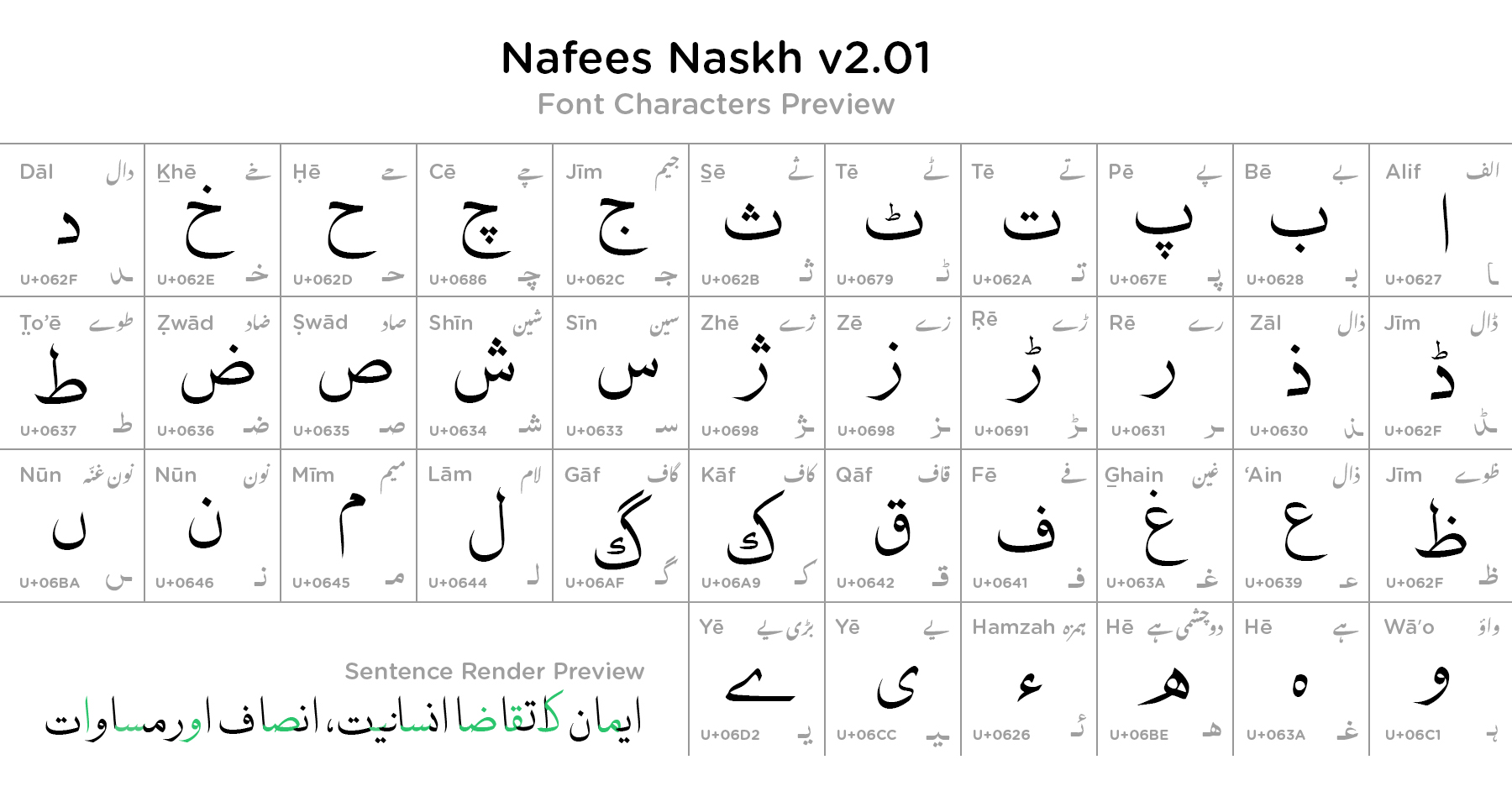
Nafees Naskh v2.01, released on September 28, 2012, is a regular Urdu font designed by Mr. Jamil-ur-Rehman under the Center For Research in Urdu Language Processing (CRULP). The font style combines traditional Naskh elements with modern influences, resulting in a bold appearance with sharp, pointy edges. With 138 characters and 598 glyphs, Nafees Naskh v2.01 supports Arabic, Latin, and Urdu languages. Its slightly bolder look makes it suitable for headings and titles, with a thickness varies throughout each letter, featuring thin and pointy tips and denser middles. The strokes exhibit contrast similar to those made by a Qalam, enhancing the font’s visual appeal.